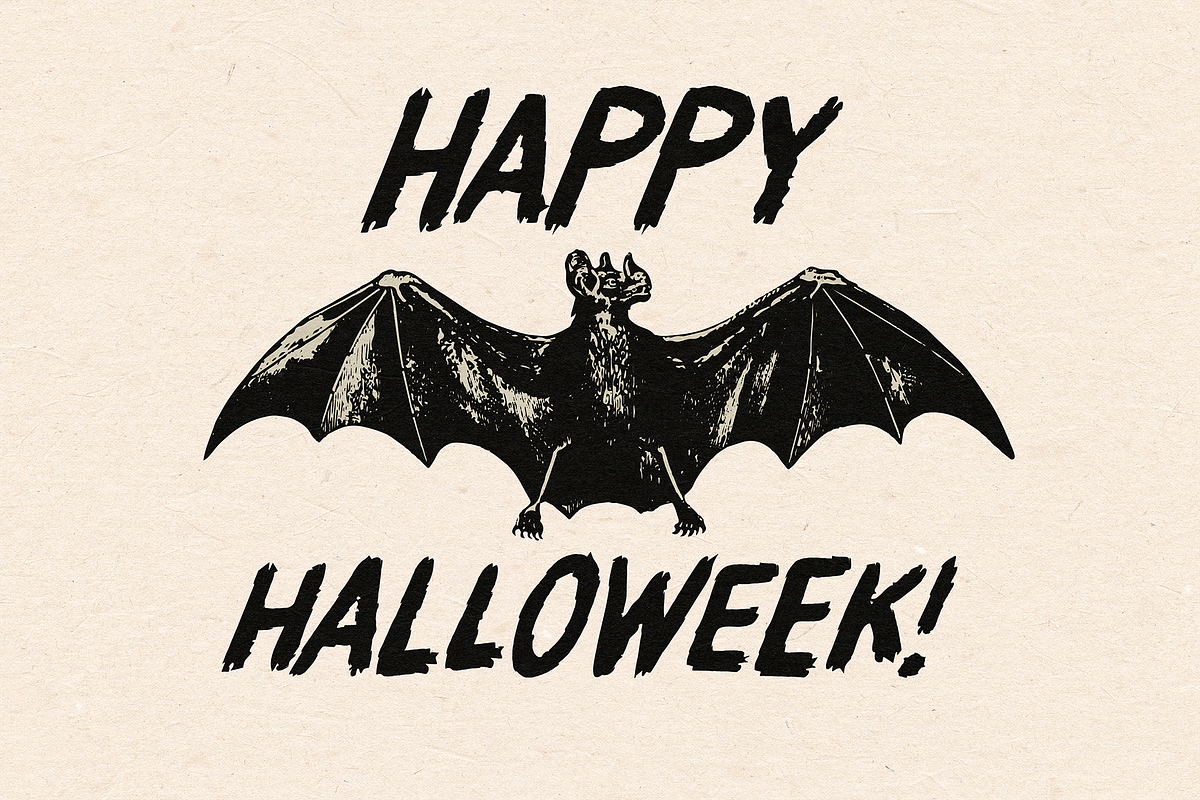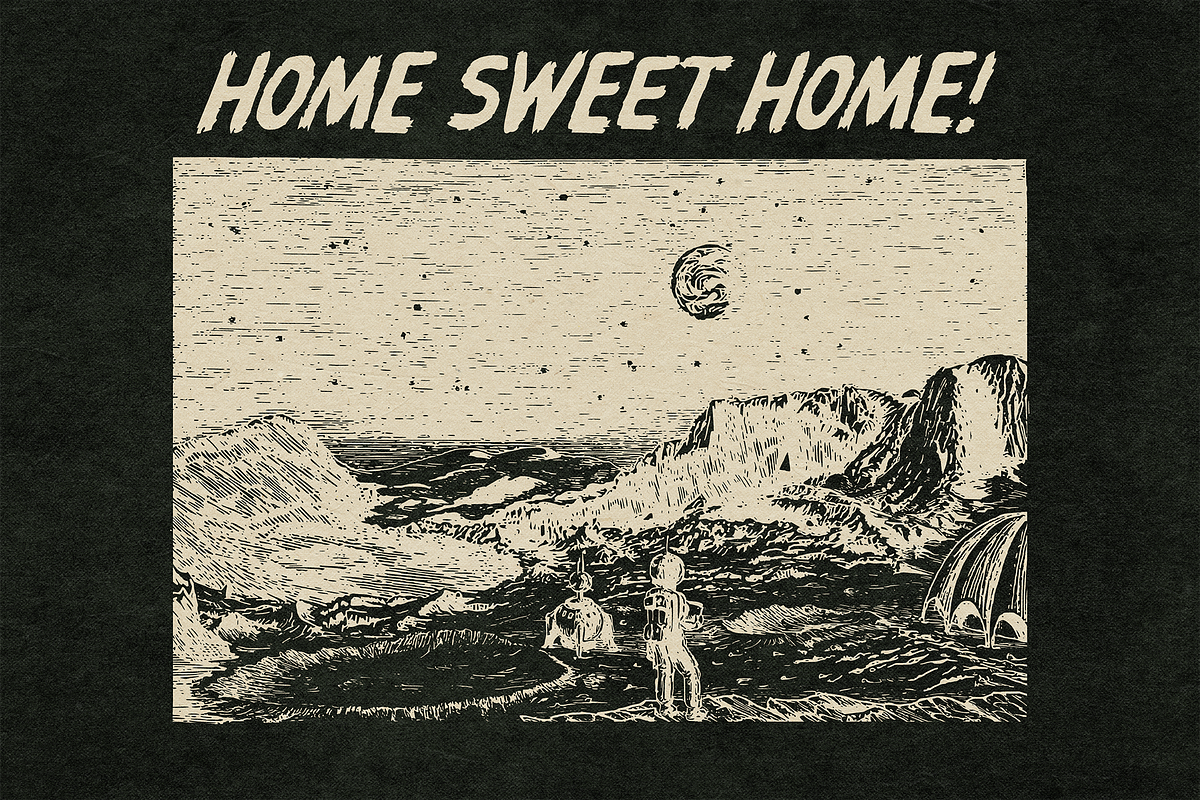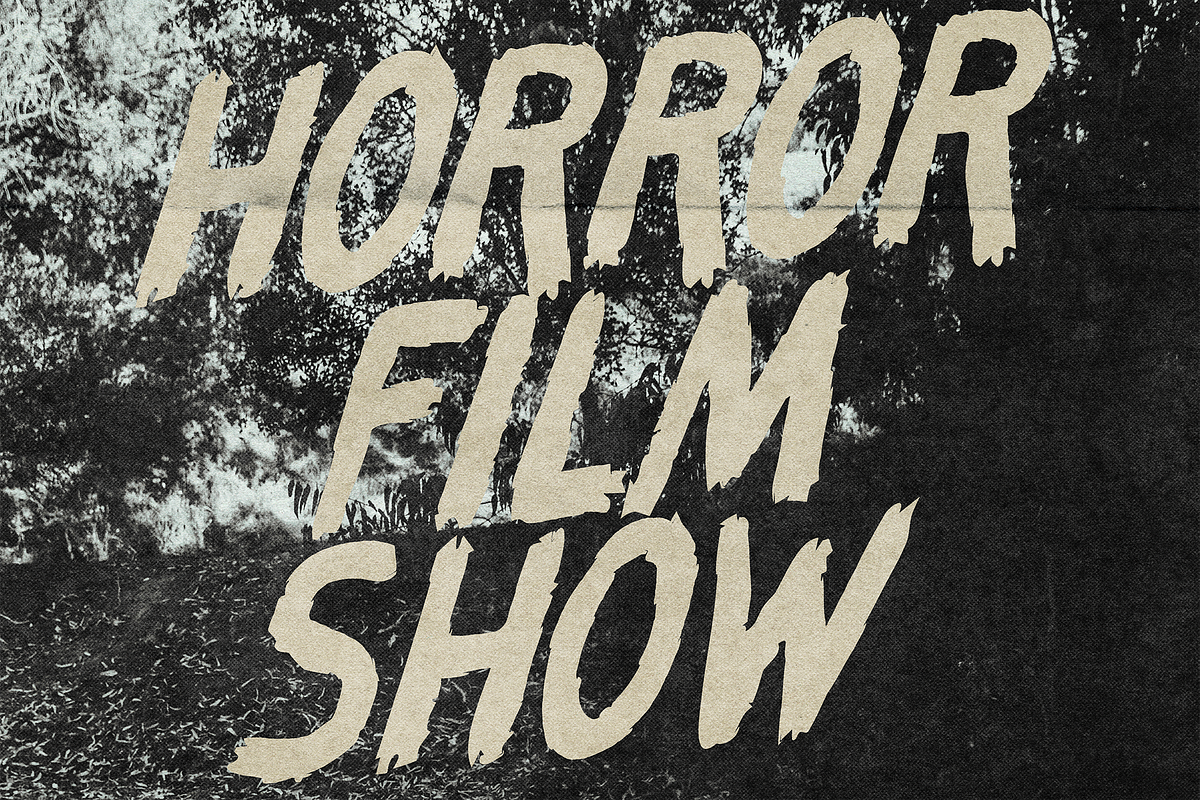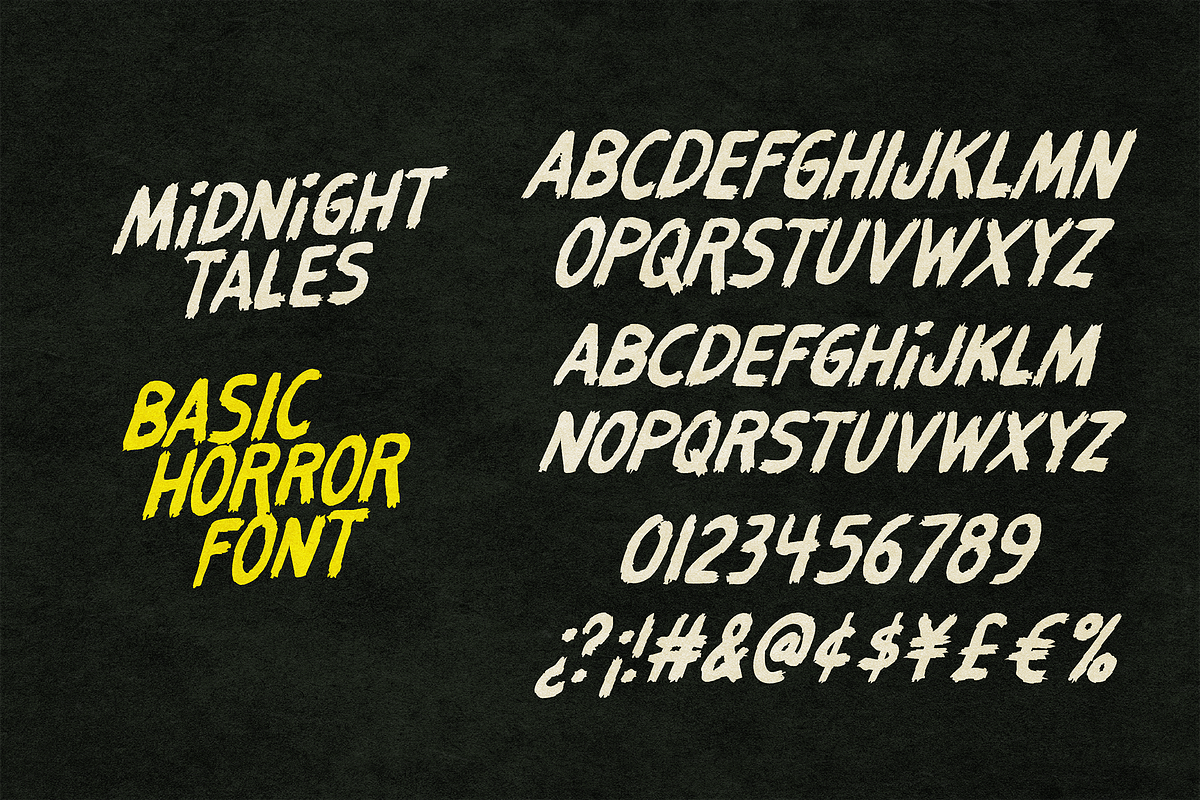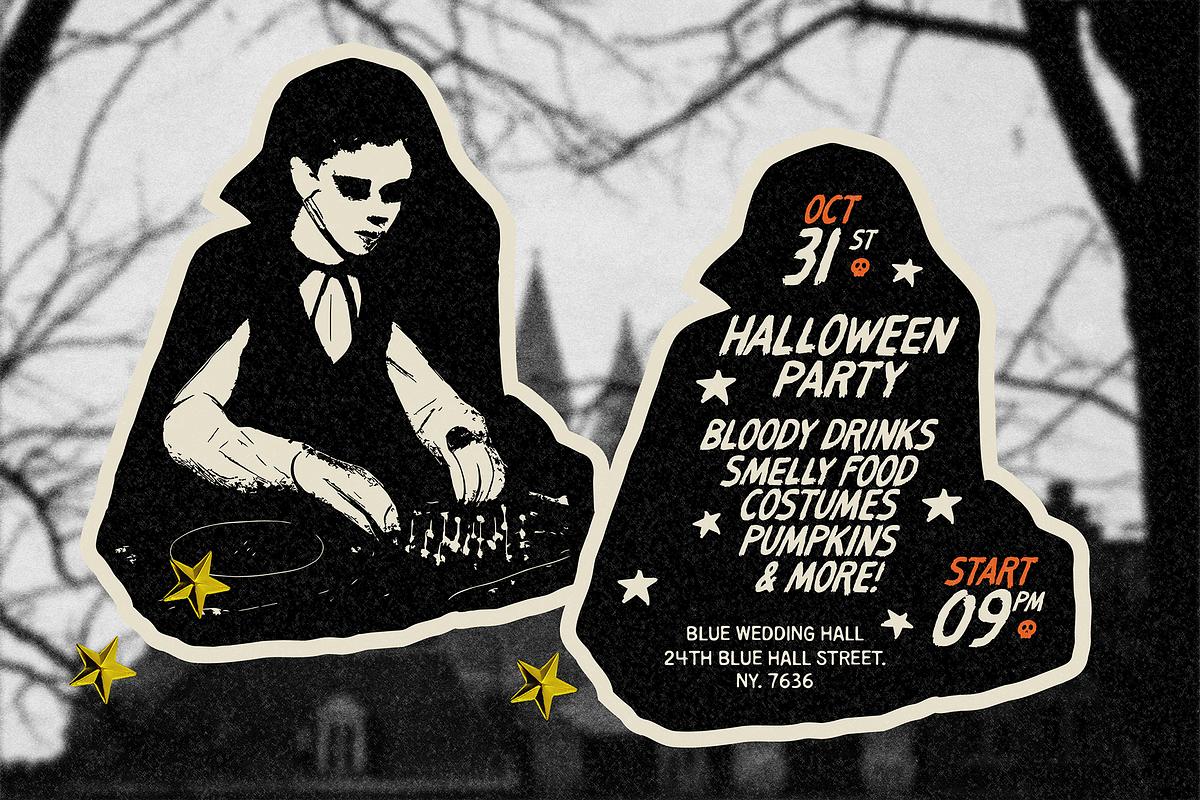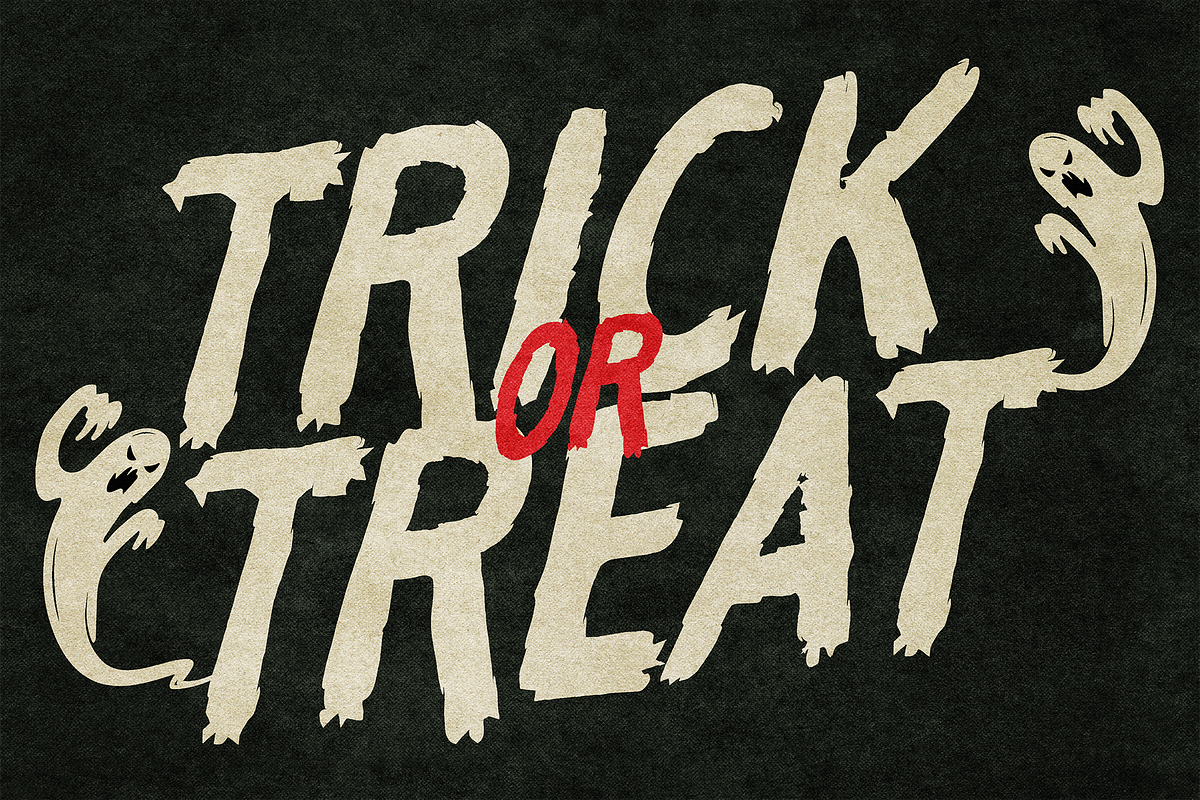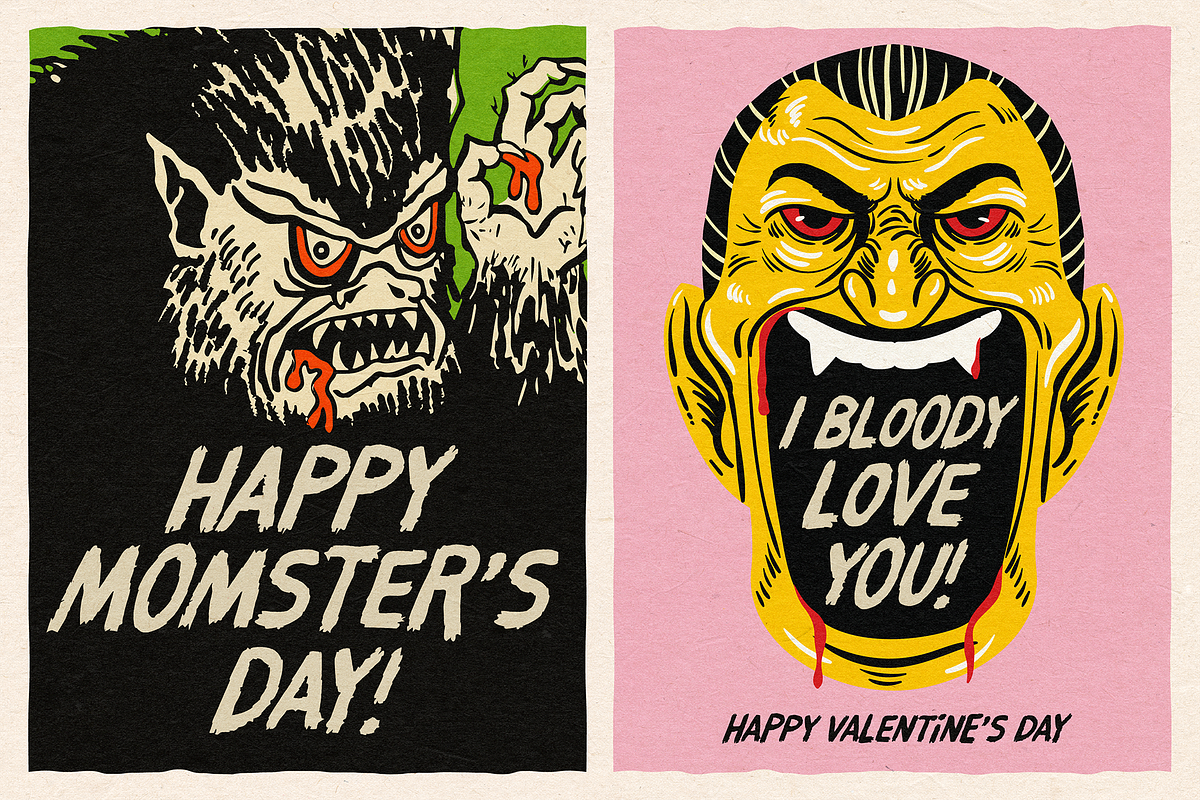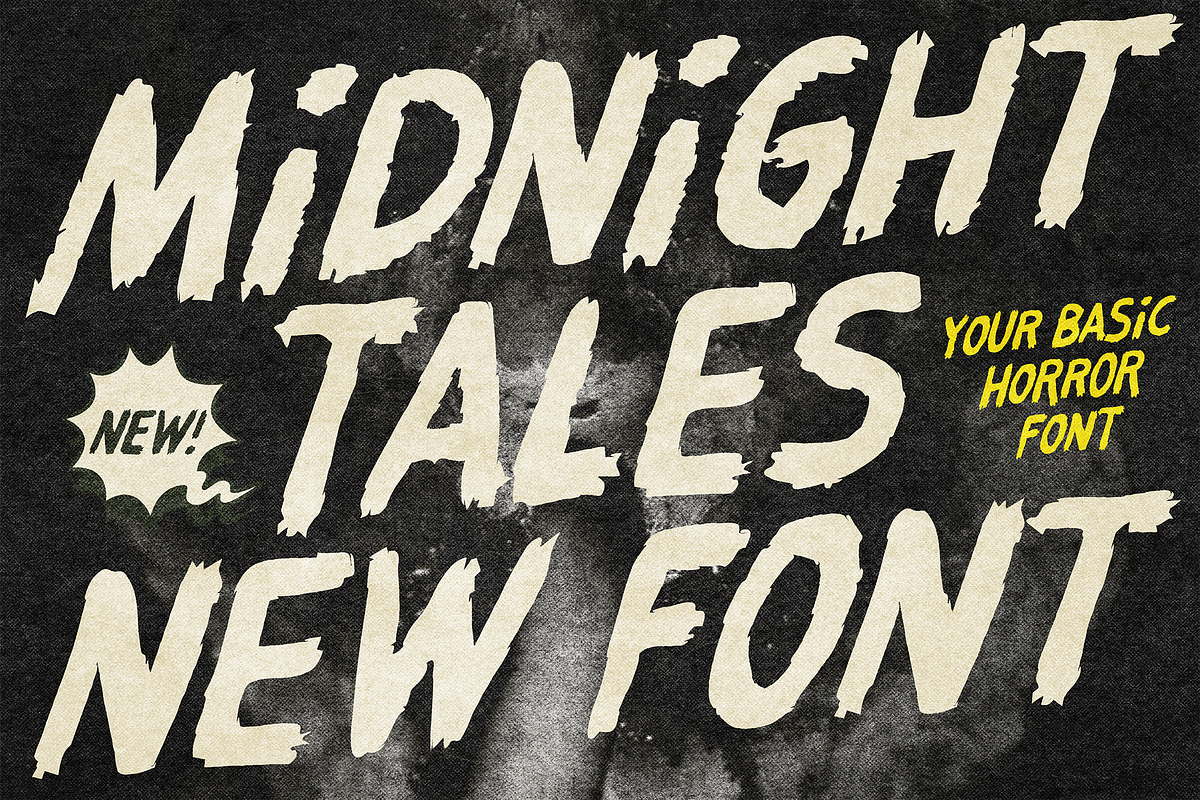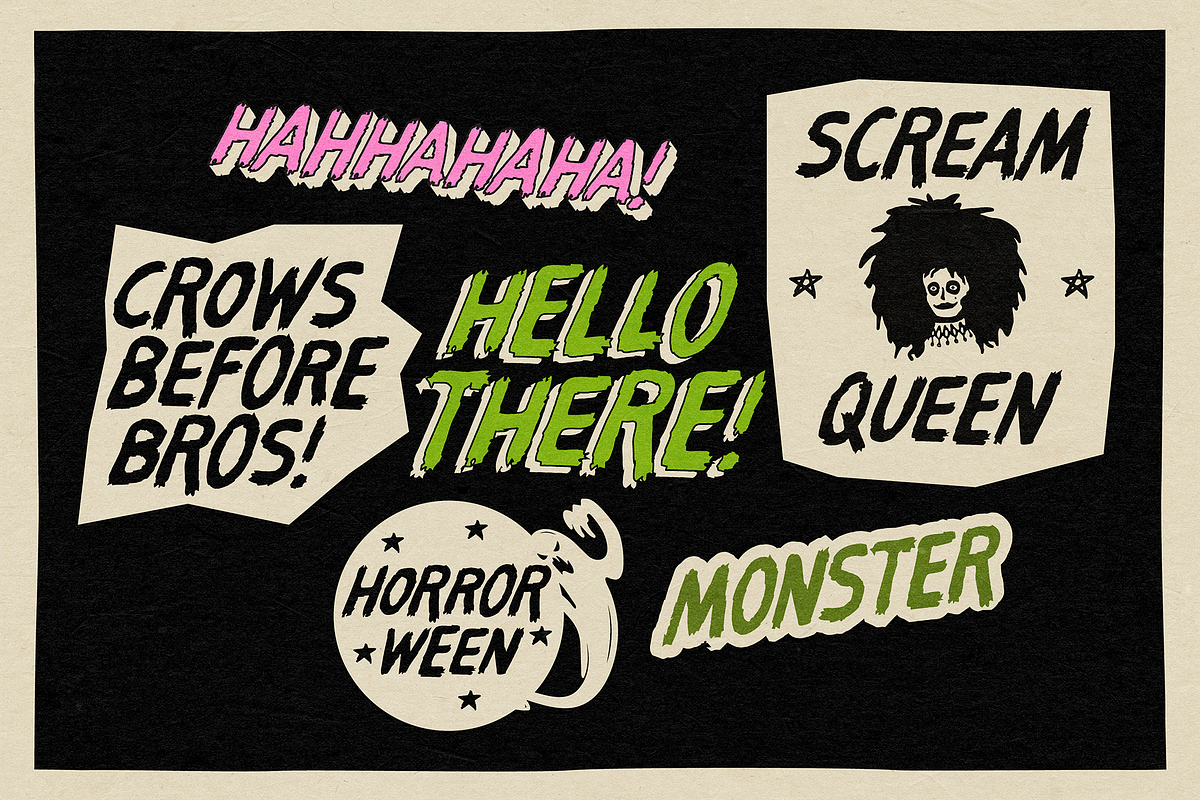
MIDNIGHT TALES | HORROR FONT
MIDNIGHT TALES is a rough, rustic and carefree handmade horror font that brings an authentic old-school horror look without being difficult to use.
It is bold, versatile, and full of character, making it perfect for horror posters and graphics, Halloween invitations, scary quotes, creepy logos, T-shirts, stickers, labels, and more!
✷ Mix uppercase and lowercase letters! the lowercase letters are intentionally smaller, allowing you to mix them with uppercase letters to create a more authentic, hand-drawn look. This playful combination gives your designs that imperfect, handmade horror feel!